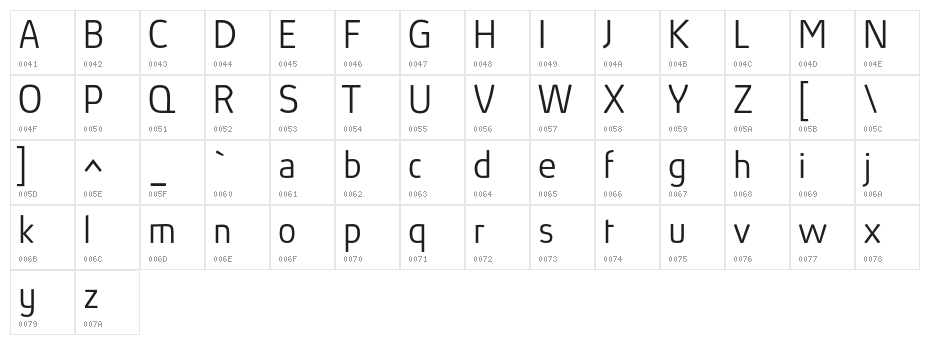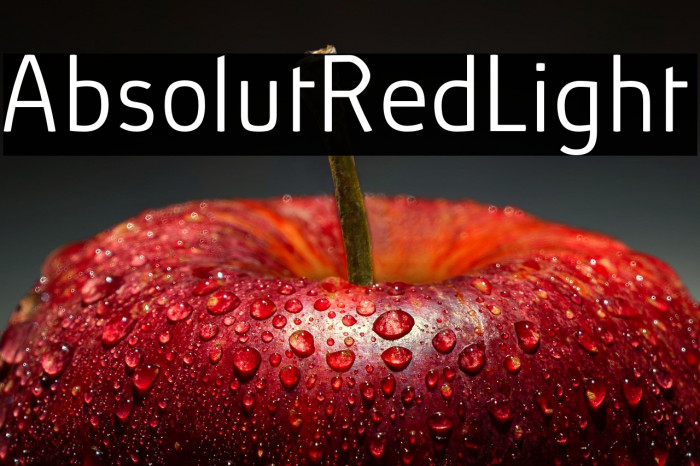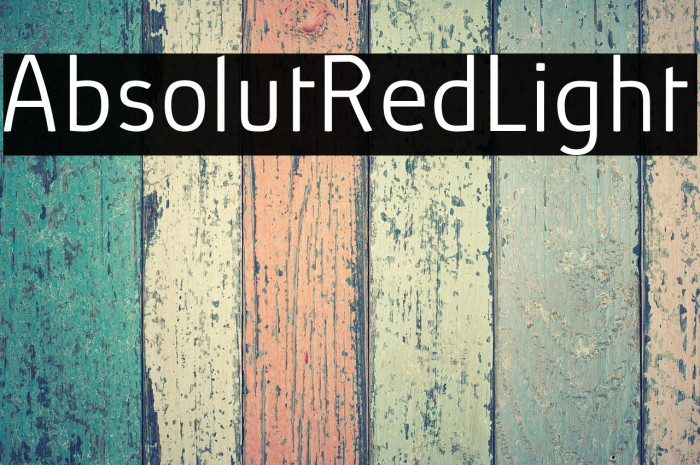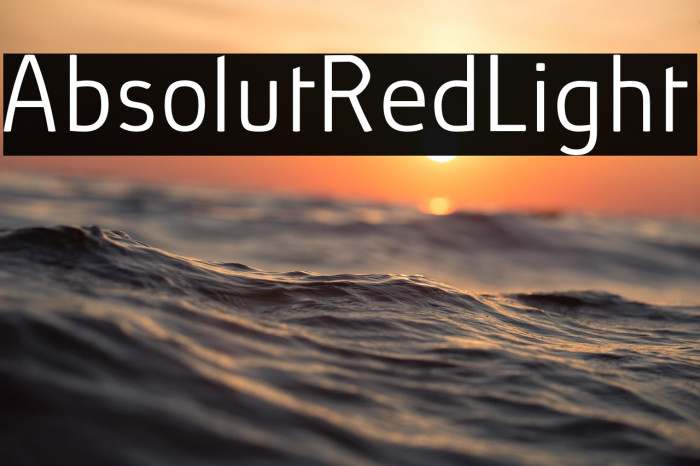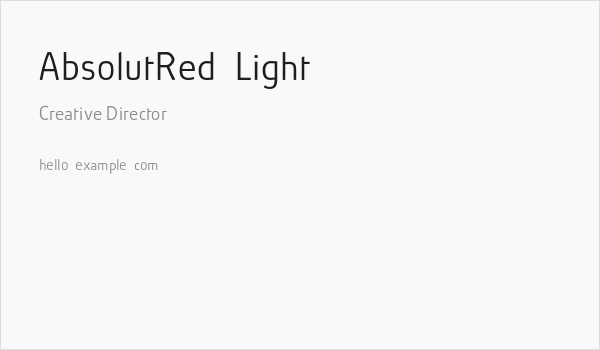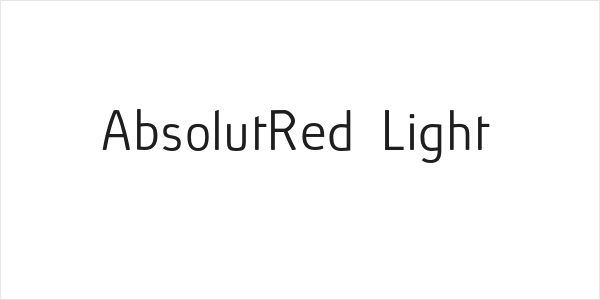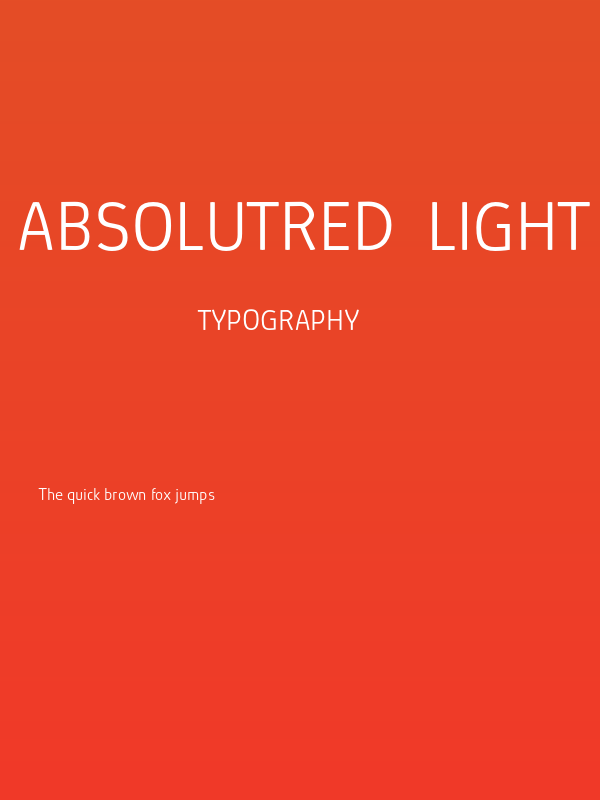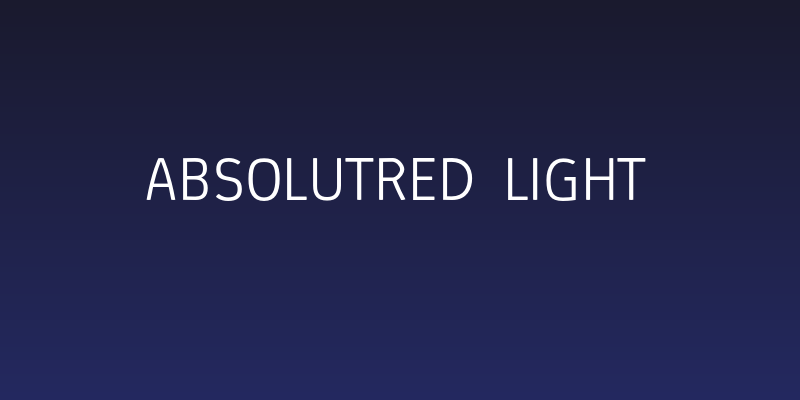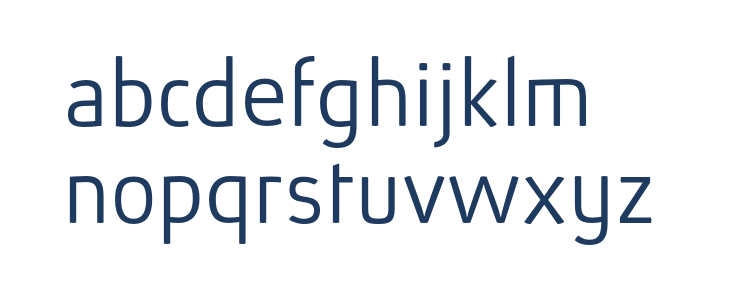
AbsolutRed-Light Font
AbsolutRed-Light Description
This font exhibits a clean, modern sans-serif style with a geometric influence. The characters are uniform and well-proportioned, featuring a consistent stroke width that contributes to its sleek appearance. The uppercase letters are bold and assertive, while the lowercase letters maintain a friendly and approachable look. The font's design is minimalistic, making it versatile for various applications. Its clarity and readability are enhanced by the generous spacing between characters, which prevents any visual clutter. This font is ideal for projects that require a contemporary and professional aesthetic.
| Proposed Projects | Ideal for branding, web design, corporate materials, and editorial layouts. |